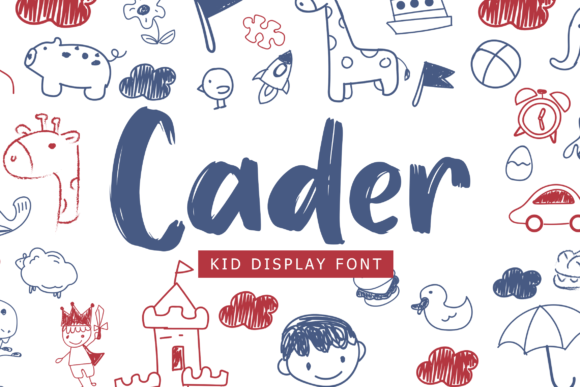
The Joyful World of Cader Font: A Designer’s Delight
I’ll never forget the time I was working on a project for a children’s party invitation. I had all the design elements ready – the colors, illustrations, and layout – but something was missing. The font I was using just didn’t have the right vibe. It was then that I stumbled upon Cader Font, and it completely transformed my design. The quirky and cute display font added a joyful touch that perfectly matched the party theme. In this article, I’ll share my experience with Cader Font, its features, and how you can make the most of it in your designs.
An Honest Review of Cader Font
What I Love About Cader Font
• ✨ Cute and Quirky Design: Cader Font is perfect for designs that need a playful and fun touch. Its unique letterforms make it stand out from more traditional fonts.
• ✅ Highly Versatile: Despite being a display font, Cader can be used for a variety of design projects, from party invitations to social media graphics.
• 💡 Easy to Read: Even with its quirky design, Cader Font remains surprisingly easy to read, making it perfect for headlines and titles.
While Cader Font is amazing for display purposes, it does have a few limitations:
• 🤔 Legibility at Small Sizes: Like many display fonts, Cader can become less legible at very small sizes. It’s best used for headlines and titles rather than body text.
• ⚠️ Limited Glyphs: Cader Font might not have as extensive a range of glyphs or special characters as some other fonts, which could limit its use in more complex designs.
The Backstory of Cader Font
Cader Font was designed with the intention of bringing joy and playfulness to the world of typography. Its creator, inspired by childhood memories of cuddly toys and vibrant colors, aimed to encapsulate that sense of wonder in a font. The result is a typeface that doesn’t take itself too seriously but manages to make any design project more delightful.
Q: Does Cader Font support OpenType features?
A: Depending on its design, Cader Font may offer some OpenType features. It’s advisable to check the font’s specifications or contact the designer for detailed capabilities.
Q: Can I use Cader Font for body text?
A: While Cader Font is primarily a display font, it’s best used for titles and headings due to its design. For body text, a more traditional and legible font would be more suitable.